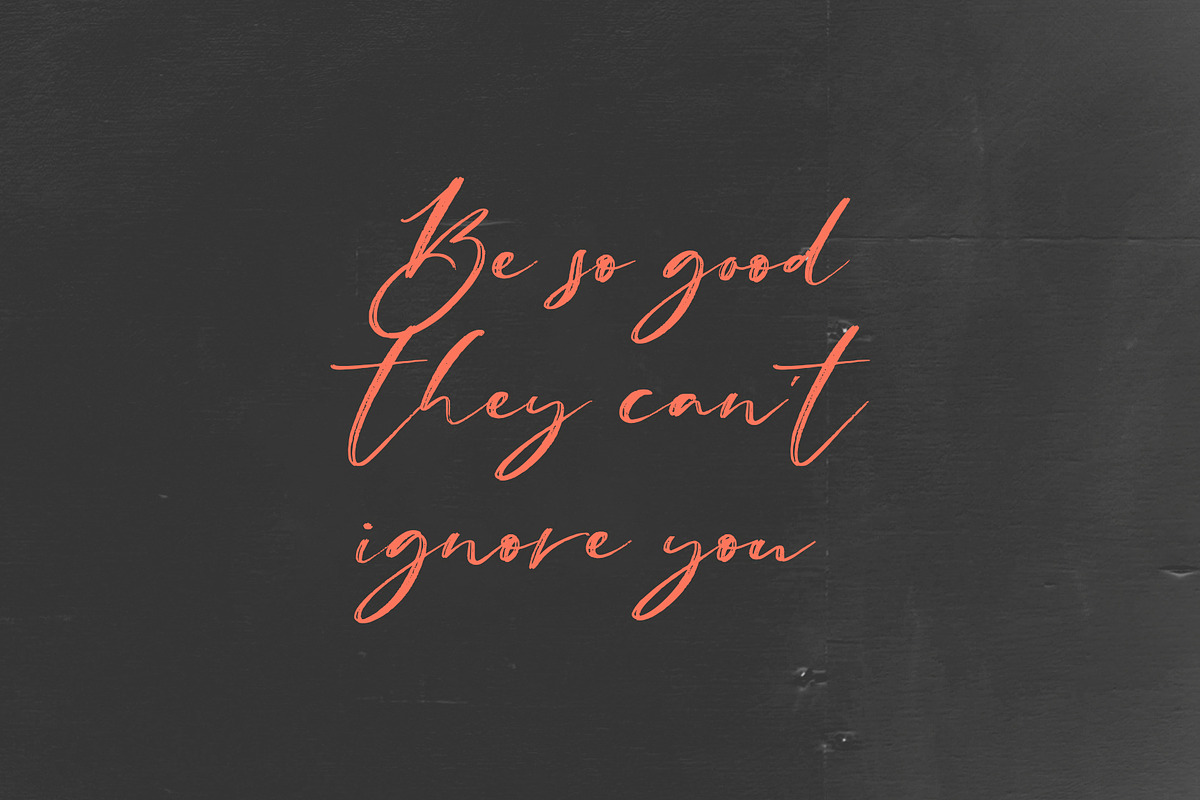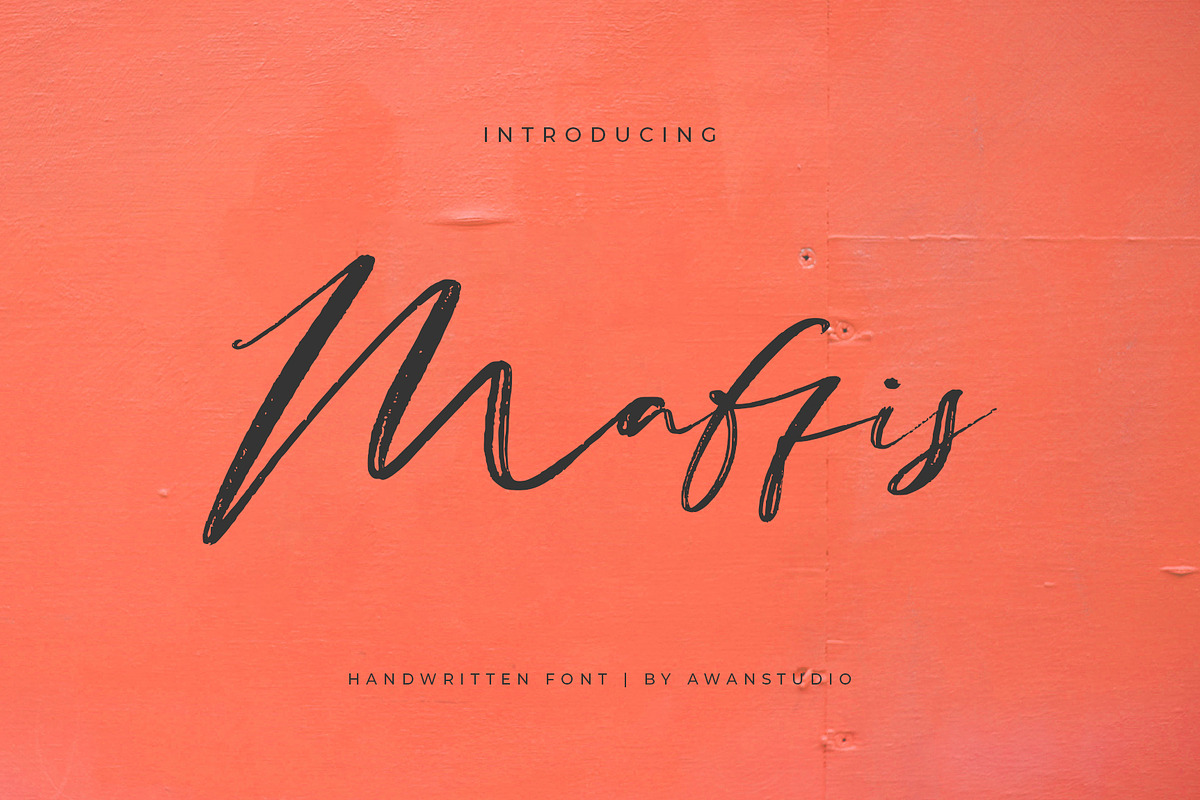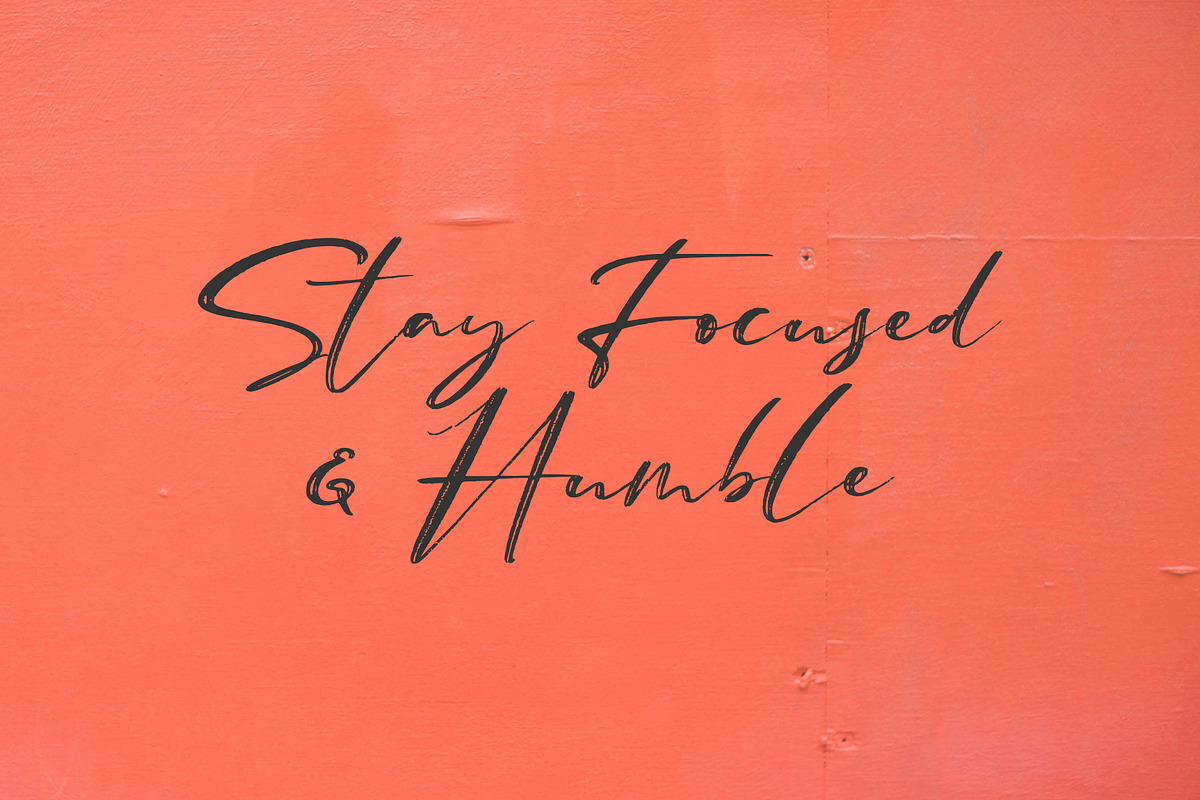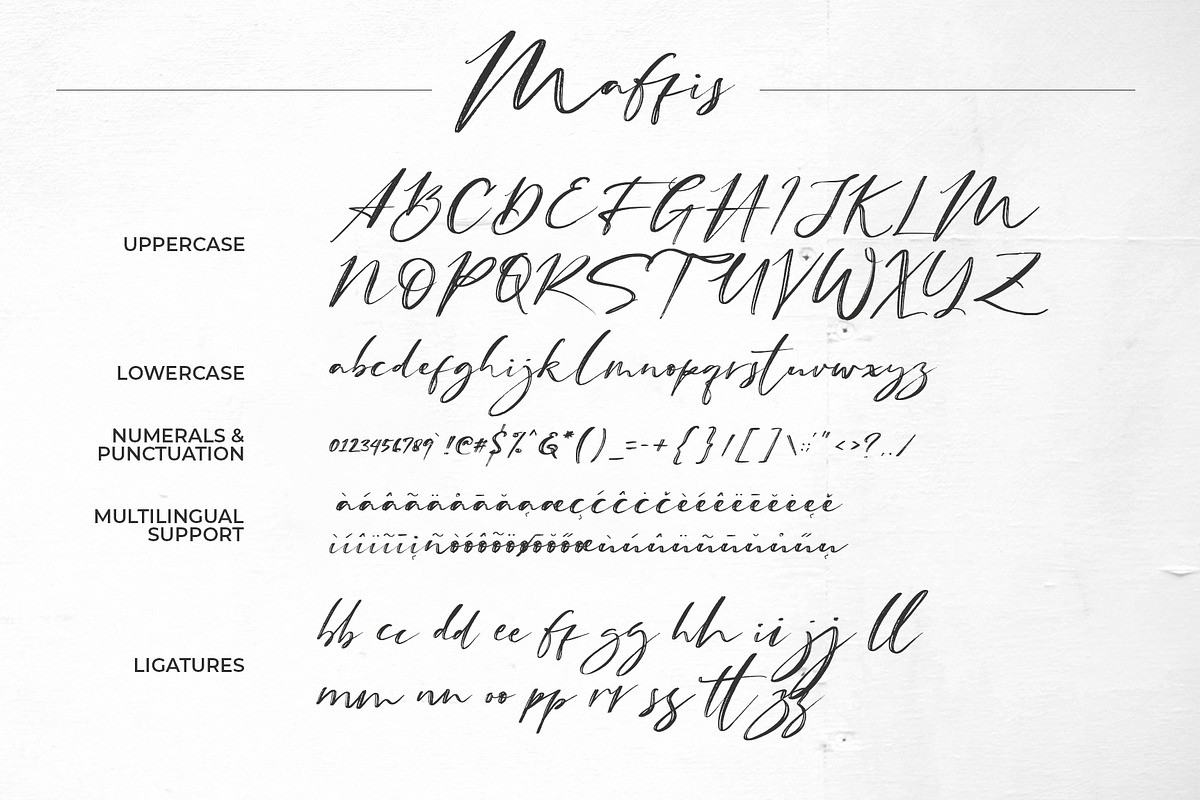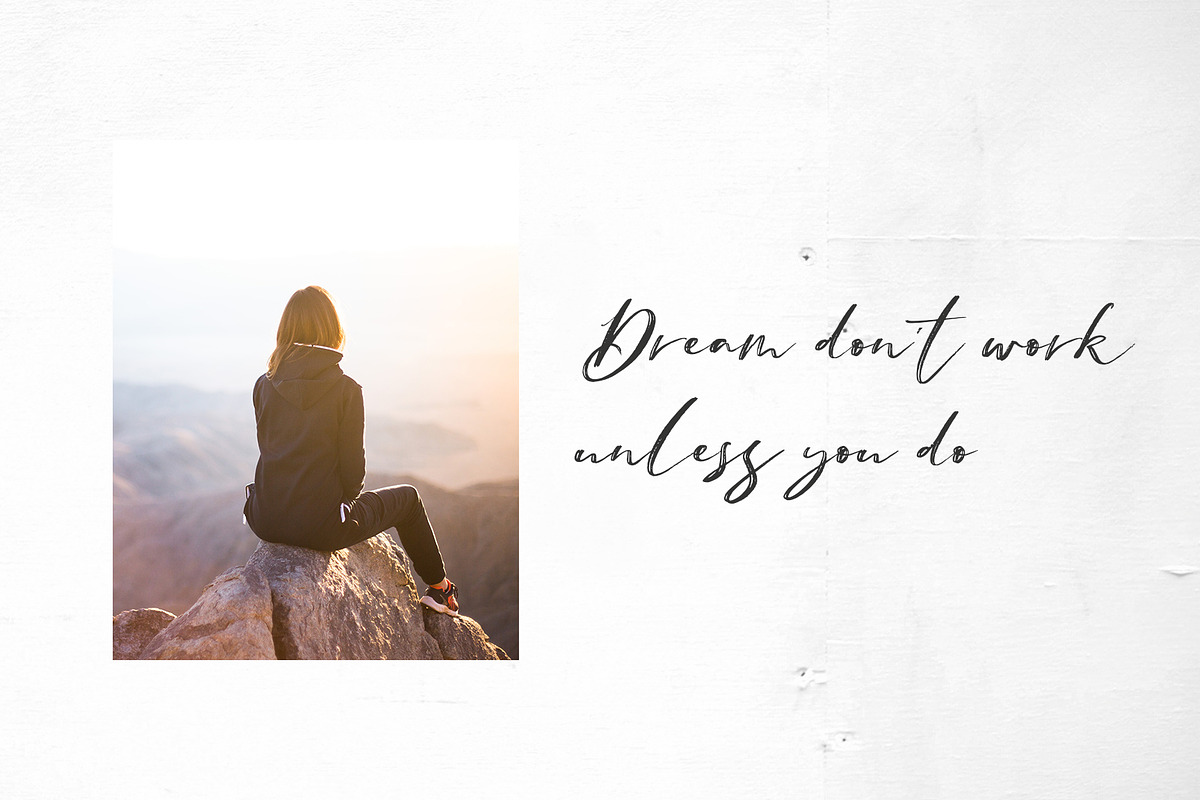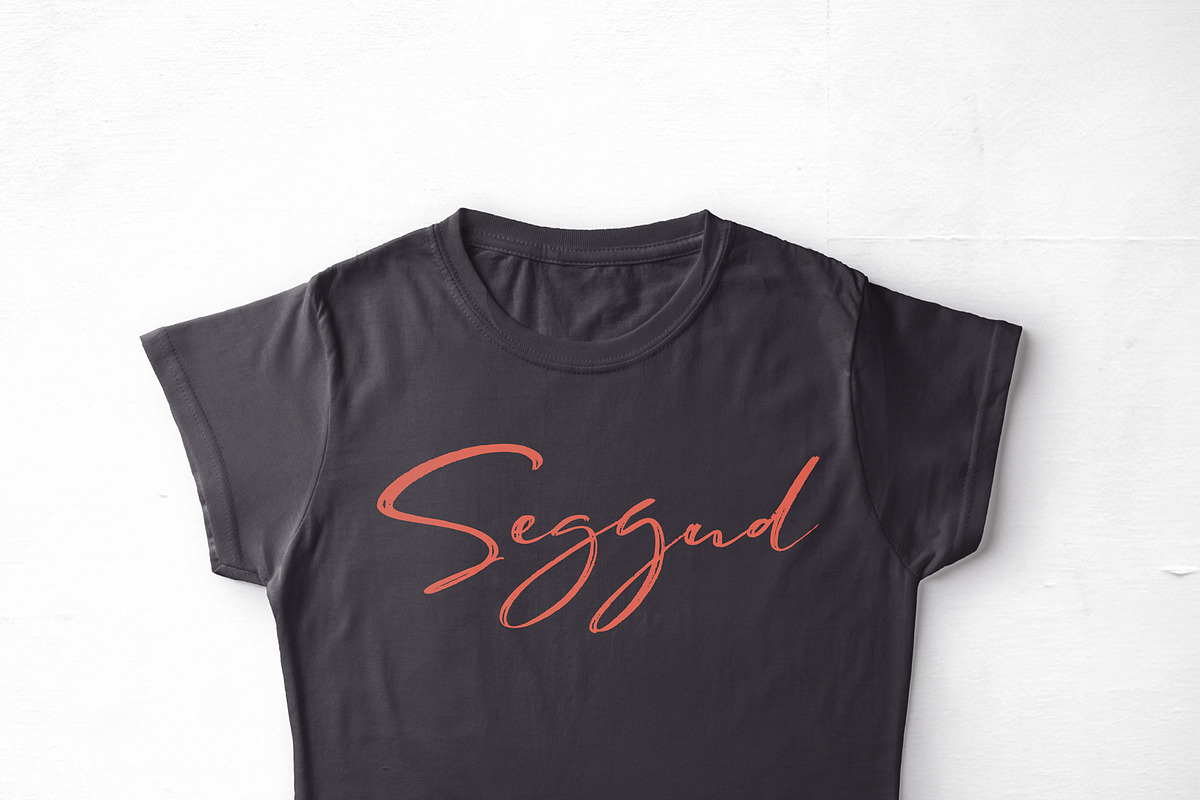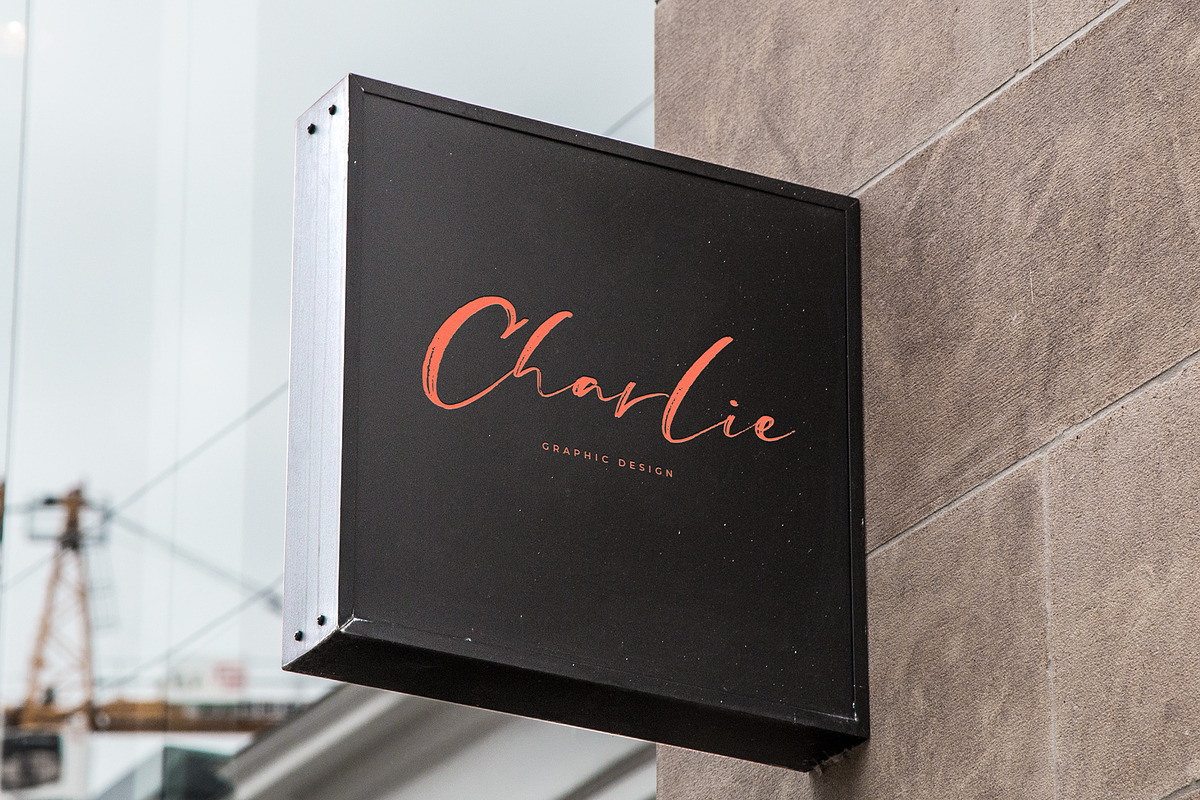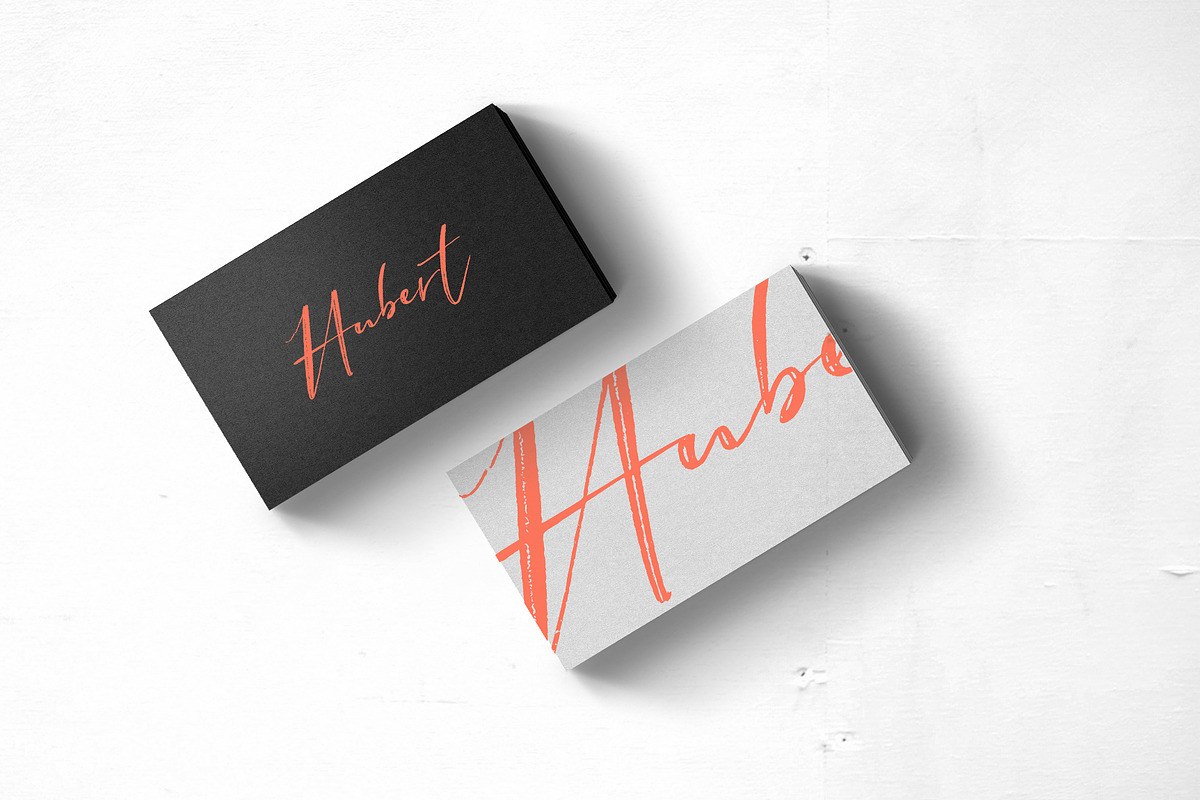
Maffis Font
Introducing Maffis! is textured handwritten font. It allows you to create stunning and easy hand-lettering in an instant. Ideal for the logo, quotes, product label/packaging, fashion, letter, advertising, poster, merchandise, greeting cards, etc